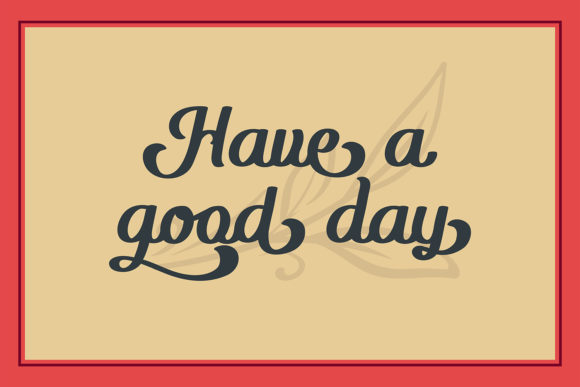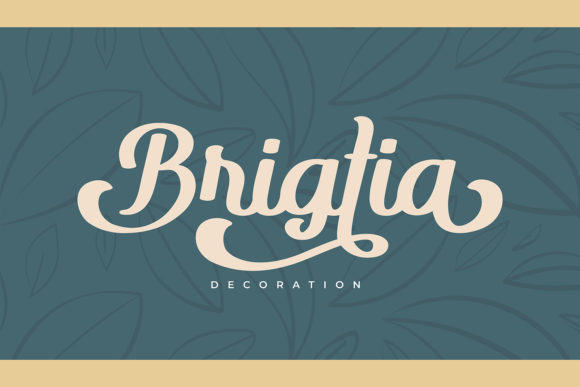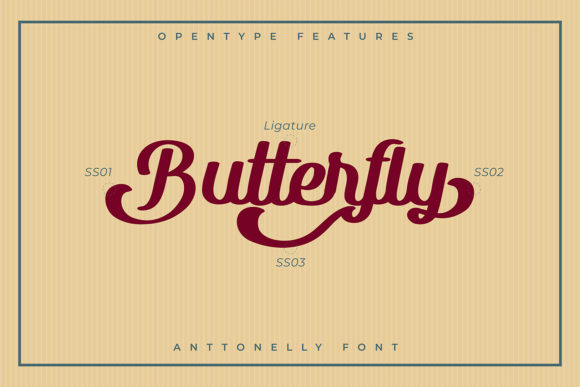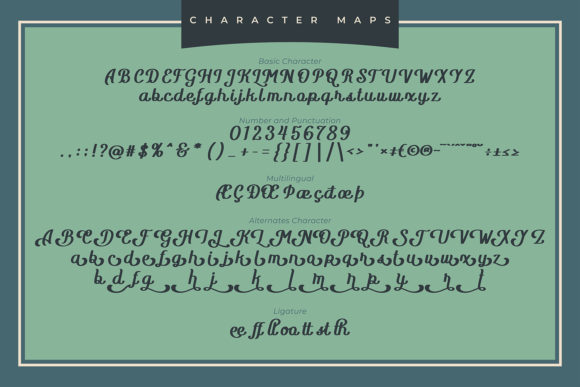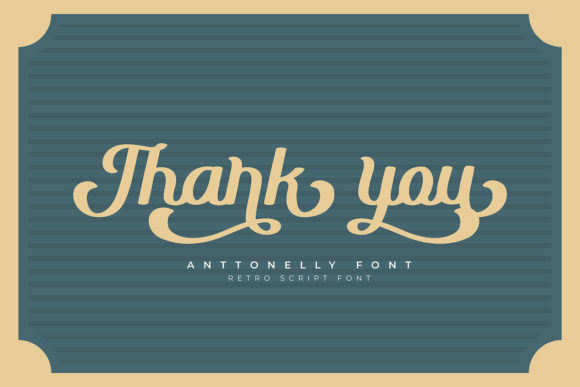
The Perfect Blend of Style and Nostalgia
Remember that moment when you stumbled upon the perfect font for your project? The one that made all your design dreams come true? For many designers, that moment is about to arrive with the introduction of the Anttonelly Font. This gorgeous and bold handwritten font is designed to give your headlines and logotype projects a stylish touch that’s both strong and confident.
With its dynamic flair, the Anttonelly Font can add tons of nostalgic character to your designs, making it a valuable addition to any designer’s toolkit. Whether you’re working on a branding project or a creative campaign, this font is sure to make your work stand out. The Anttonelly Font is a game-changer for designers looking to add a touch of elegance and sophistication to their designs.
Anttonelly Font Key Features
- Font Family: Anttonelly, Anttonelly Bold, Anttonelly Italic, Anttonelly Bold Italic
- Unique Characteristics: Hand-drawn, elegant, and modern design with a touch of sophistication and playfulness
Review of Anttonelly Font
Overall, I found the Anttonelly Font to be a visually appealing choice, especially when used for display purposes. ✨ The unique blend of modern and elegant elements makes it suitable for various design applications, from branding to editorial content.
- ✨ The font’s distinctive feel and personality add a touch of sophistication to any design.
- ✨ The font’s readability is excellent, making it easy to use for body text or headlines.
- ✨ The font’s versatility allows it to be used across various platforms, from digital to print.
- ⚠️ The font’s irregularities may not be suitable for all design projects, particularly those requiring a more uniform or traditional look.
- ⚠️ The font’s limited character set may cause issues when working with languages that require a larger character set.
- ⚠️ The font’s compatibility with older systems may be limited, which could lead to compatibility issues.
Overall, I think the Anttonelly Font is a solid choice for designers looking for a unique and elegant font. However, it may not be the best fit for every project, and designers should carefully consider the font’s limitations before making a final decision.
Tips for Getting the Most Out of Anttonelly Font
Use the Anttonelly font in combination with bold or italic styles to add emphasis and create visual interest. Experiment with different font sizes and colors to enhance the overall aesthetic of your design. Also, use the Anttonelly font in conjunction with other elegant fonts to create a cohesive and sophisticated look.
The Anttonelly font is ideal for: wedding invitations, luxury brand logos, high-end product packaging, and any other design project where you want to convey elegance and sophistication. It’s also perfect for creating a cohesive brand identity and adding a touch of sophistication to your marketing materials.